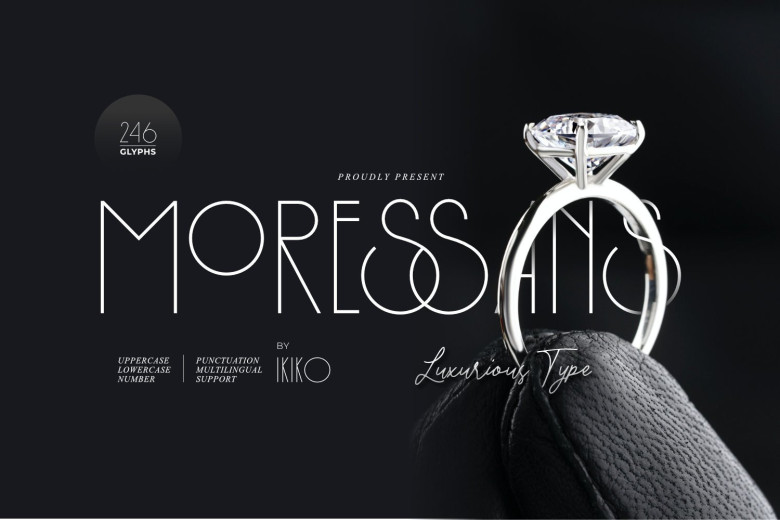
Moressans Font
Moressans A Bold Beautiful Sans Serif Font. Moressans is a sans serif typeface with a thin and rounded design. A simple font with a thin size, in addition to elegance in this font is also fashionable. It works best as an elegant logo, branding, fashion brand, luxury brand, magazine layout, beauty products, products packaging, quotes or simply as a stylish text overlay to any background image.
Moressans Sans Serif Font